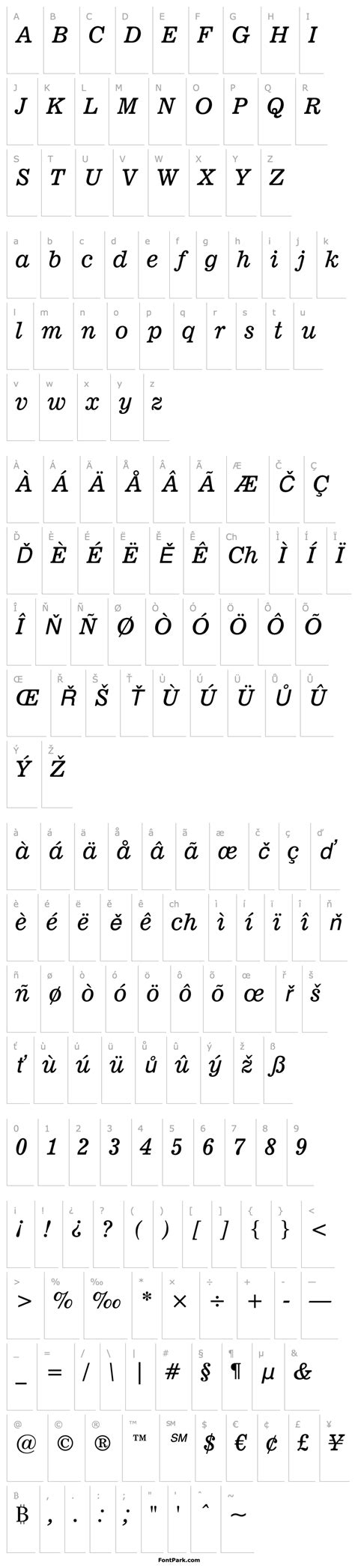
INews 701 BT Italic Font: A Comprehensive Guide
iNews 701 BT Italic: A Comprehensive Guide
Hey guys! Today, we’re diving deep into the world of fonts, specifically the iNews 701 BT Italic font. If you’re a designer, content creator, or just someone who appreciates typography, you’ve probably stumbled upon this font before. But what makes it so special? Why should you consider using it in your projects? Let’s break it down.
What is iNews 701 BT Italic?
First things first, let’s understand what exactly iNews 701 BT Italic is. It’s a typeface that belongs to the iNews family, known for its clean lines and readability. The “701” indicates a specific weight and style, and the “Italic” part, well, that’s pretty self-explanatory – it’s the slanted version! This font is often used in news publications, websites, and other media where clarity and a touch of elegance are essential. Its design makes it suitable for both body text and headlines, giving it a versatile edge over many other fonts. The slight slant of the italic version adds emphasis and visual interest, making it perfect for highlighting key points or adding a stylistic flair to your content. Beyond its aesthetic appeal, iNews 701 BT Italic is also designed for optimal readability across various screen sizes and resolutions, which is crucial in today’s digital landscape. Whether you’re designing a website, creating a presentation, or formatting a document, this font ensures that your text remains legible and visually appealing. Its balanced letterforms and consistent spacing contribute to a smooth reading experience, reducing eye strain and enhancing comprehension. Furthermore, the iNews family, including the 701 BT Italic variant, often includes a comprehensive character set, supporting a wide range of languages and special symbols. This makes it a practical choice for international projects or when dealing with diverse content requirements. In essence, iNews 701 BT Italic is a blend of functionality and style, making it a valuable asset in any designer’s toolkit.
Key Features and Characteristics
So, what are the standout features of iNews 701 BT Italic ? Here’s a rundown:
• Readability : This font is designed with readability in mind, ensuring that your text is easy to read even at smaller sizes.
• Italic Style : The italic slant adds emphasis and a touch of sophistication to your text.
• Clean Lines : The clean, crisp lines make it visually appealing and professional.
• Versatility : It works well for both headlines and body text, making it a versatile choice for various projects.
• Modern Look : Its contemporary design gives your content a fresh and up-to-date feel.
Digging a bit deeper, the iNews 701 BT Italic font boasts several other characteristics that make it a preferred choice for many designers and content creators. The consistent stroke weight across all characters ensures a uniform appearance, which is essential for maintaining a professional look. The font’s x-height (the height of lowercase letters) is carefully balanced to enhance readability, preventing the letters from appearing too cramped or too sparse. Additionally, the spacing between characters is meticulously crafted to create a comfortable reading rhythm, minimizing eye strain and improving comprehension. The italic style itself is not just a simple slant; it’s a carefully designed variation that maintains the font’s overall structure and legibility. The curves and angles are optimized to ensure that the italic version complements the regular version seamlessly. Furthermore, the font often includes ligatures (special characters that combine two or more letters into a single glyph) to enhance the aesthetic appeal and readability of certain letter combinations. These features, combined with the font’s comprehensive character set and support for multiple languages, make iNews 701 BT Italic a robust and reliable choice for a wide range of applications. Whether you’re working on a print project, a digital design, or a web page, this font offers the flexibility and performance you need to achieve your desired visual outcome.
Where to Use iNews 701 BT Italic
Okay, so you’re sold on the iNews 701 BT Italic font. But where can you actually use it? Here are a few ideas:
• Newsletters : Use it to add a touch of elegance and readability to your email newsletters.
• Websites : It’s great for headlines, body text, and navigation menus.
• Presentations : Make your presentations more engaging with this stylish font.
• Print Materials : Brochures, flyers, and posters can all benefit from its clean design.
• Books and Magazines : Perfect for adding a modern twist to traditional print media.
Expanding on these ideas, iNews 701 BT Italic can be particularly effective in scenarios where conveying information clearly and efficiently is paramount. For instance, in the realm of digital marketing, using this font in your email campaigns can significantly improve engagement rates. The clean and legible design ensures that your message is easily understood, while the italic style can be used to highlight key promotions or calls to action. In website design, iNews 701 BT Italic can create a cohesive and professional look, especially when used consistently across all pages. The font’s versatility allows you to use it for headings, subheadings, and body text, creating a visually appealing hierarchy that guides users through your content. Moreover, in print materials, this font can help you create a sophisticated and modern aesthetic. Whether you’re designing a brochure for a luxury brand or a poster for a cultural event, iNews 701 BT Italic can add a touch of class and readability. Its clean lines and balanced letterforms ensure that your message is conveyed clearly, even at smaller sizes. In the publishing industry, this font can be a valuable asset for designing books and magazines. Its modern look and excellent readability make it a great choice for both fiction and non-fiction publications. By using iNews 701 BT Italic, you can create a visually appealing and engaging reading experience for your audience.
How to Use iNews 701 BT Italic Effectively
Using iNews 701 BT Italic effectively involves a few key considerations. First, think about context. Is it for a formal document or a casual blog post? This will guide how much you use the italic style. Overusing italics can make your text look cluttered and hard to read. Instead, use it sparingly to emphasize key words or phrases. Also, consider pairing it with other fonts. A classic pairing is iNews 701 BT Italic with a simple sans-serif font for the body text. This creates a nice contrast and keeps your design balanced. Pay attention to font size and spacing as well. Ensure that the font size is appropriate for the medium (screen or print) and that the spacing between letters and lines is comfortable for reading. Experiment with different weights and styles within the iNews family to create visual hierarchy and add depth to your design. Finally, always test your design on different devices and browsers to ensure that the font renders correctly and looks good across all platforms. By keeping these tips in mind, you can harness the full potential of iNews 701 BT Italic and create visually stunning and highly effective designs. Always remember, typography is an art, and mastering it requires practice and attention to detail. But with the right tools and techniques, you can create designs that not only look great but also communicate your message clearly and effectively.
Tips and Tricks for Working with iNews 701 BT Italic
Alright, let’s get into some practical tips for making the most of iNews 701 BT Italic :
1. Pairing : Pair it with a clean sans-serif font like Arial or Helvetica for a modern look.
2. Hierarchy : Use different weights and sizes to create a clear visual hierarchy.
3. Emphasis : Use italics sparingly for emphasis, not as the default style.
4. Contrast : Combine it with bold or regular weights for contrast and visual interest.
5. Testing : Always test your design on different devices and browsers to ensure readability.
Delving deeper into these tips, font pairing is a crucial aspect of effective typography. When working with iNews 701 BT Italic , consider pairing it with fonts that offer a strong contrast in style. For example, a geometric sans-serif font like Montserrat or a humanist sans-serif like Open Sans can complement iNews 701 BT Italic beautifully. The key is to choose a font that doesn’t compete with iNews 701 BT Italic but rather enhances its readability and visual appeal. Creating a visual hierarchy is another essential technique for making your design more engaging and informative. Use different font sizes, weights, and styles to guide the reader’s eye through the content. For instance, you can use iNews 701 BT Italic for headings and subheadings to add a touch of elegance, while using a regular sans-serif font for the body text to ensure readability. Remember, consistency is key, so stick to a limited number of font styles and sizes to maintain a cohesive look. Emphasis is a powerful tool, but it should be used judiciously. Overusing italics can dilute its impact and make your text look cluttered. Instead, use italics to highlight key words, phrases, or quotes that you want to stand out. Contrast is another important element to consider. By combining iNews 701 BT Italic with bold or regular weights, you can create visual interest and add depth to your design. For example, you can use bold weights for headings and subheadings to make them more prominent, while using iNews 701 BT Italic for captions or pull quotes to add a touch of sophistication. Finally, always test your design on different devices and browsers to ensure that the font renders correctly and looks good across all platforms. This is particularly important for web design, where font rendering can vary depending on the browser and operating system. By testing your design thoroughly, you can identify and fix any issues before they affect the user experience.
Common Mistakes to Avoid
Nobody’s perfect, and when it comes to using fonts, it’s easy to make mistakes. Here are some common pitfalls to avoid when working with iNews 701 BT Italic :
So there you have it! A comprehensive guide to iNews 701 BT Italic . It’s a versatile and stylish font that can add a touch of elegance to your projects. Just remember to use it wisely and pair it with other fonts that complement its style. Happy designing!